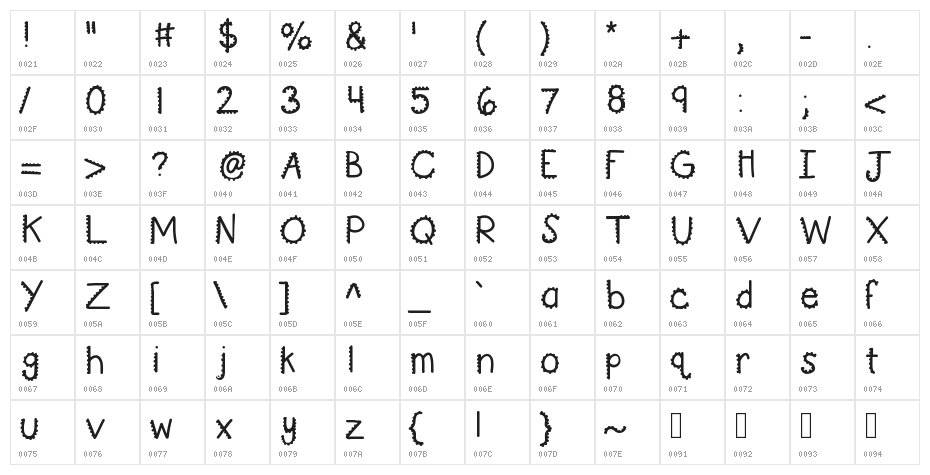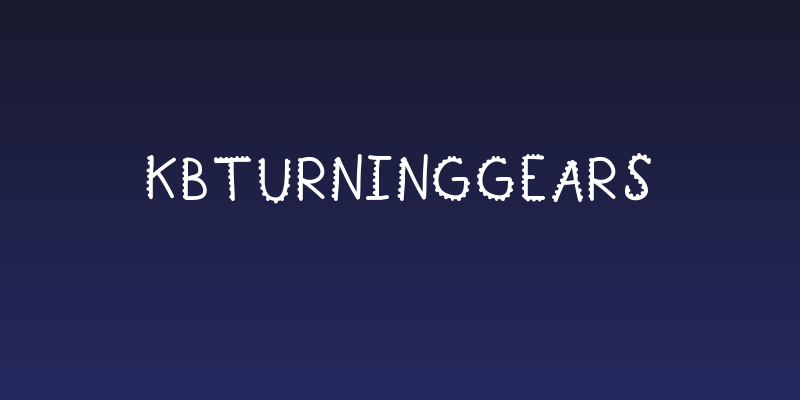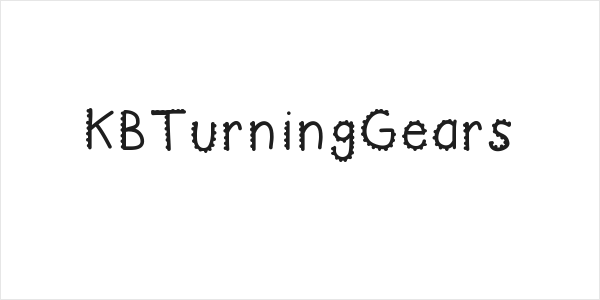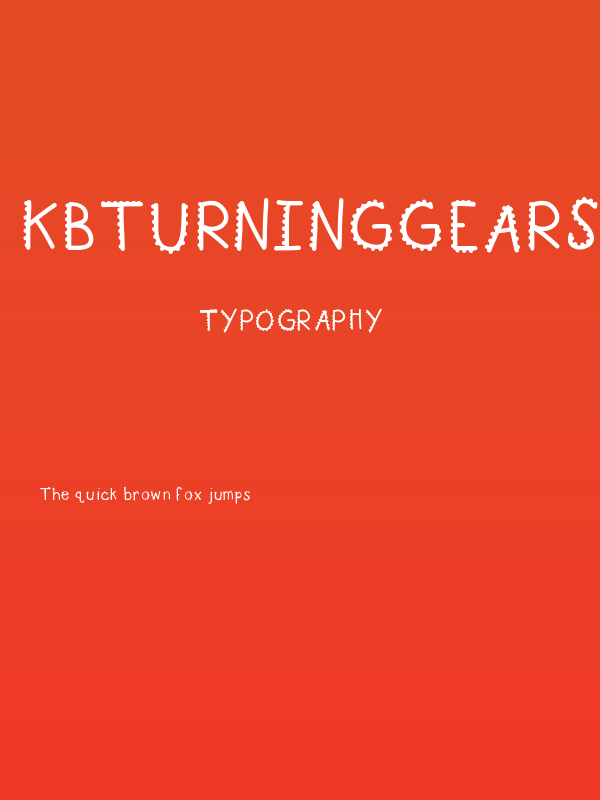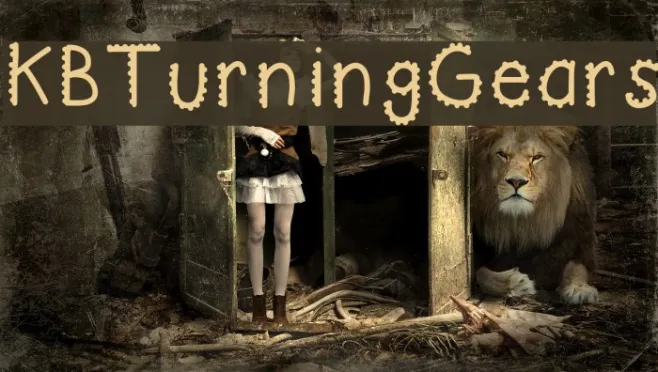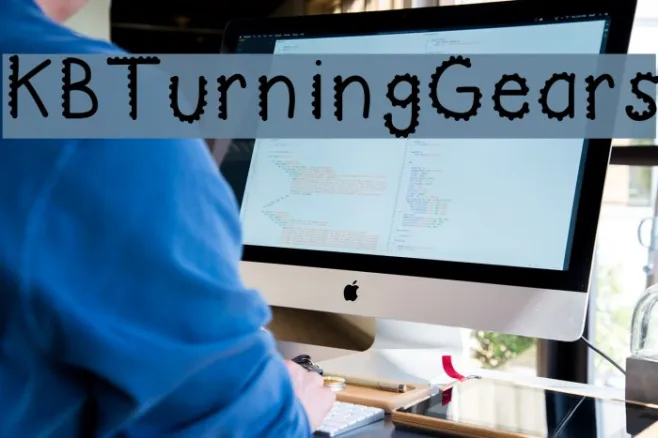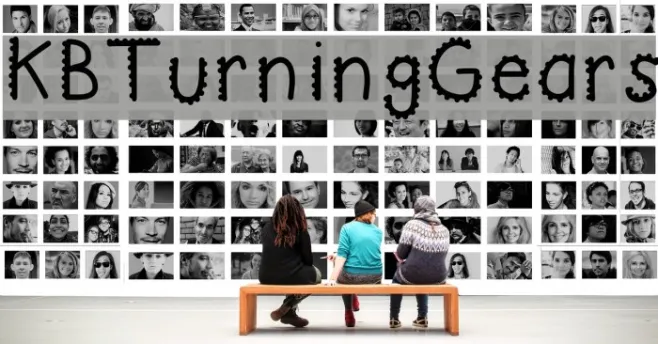
KBTurningGears Font
KBTurningGears Description
This font features a unique and playful design, characterized by its gear-like embellishments on each character. The letters are bold and rounded, with small circular protrusions that mimic the appearance of mechanical gears. This gives the typeface a whimsical and industrial feel, making it stand out in any design. The uppercase and lowercase letters maintain a consistent style, with numerals and special characters following the same decorative theme. The font's distinctiveness makes it suitable for creative projects that require a touch of fun and innovation.
| Proposed Projects | Ideal for steampunk-themed designs, children's books, creative posters, and branding for tech or engineering companies. |